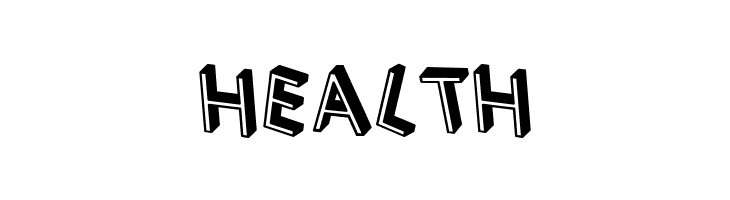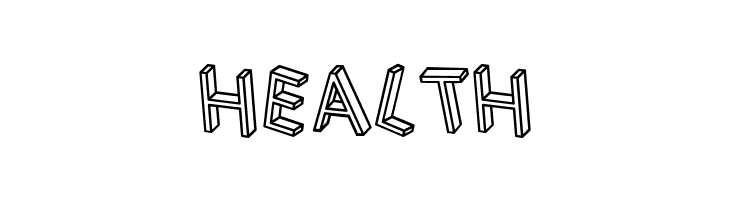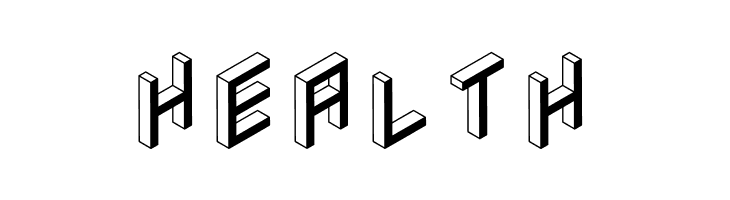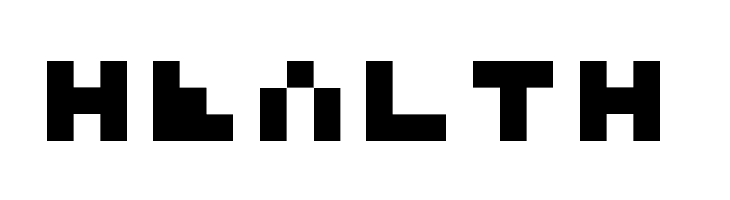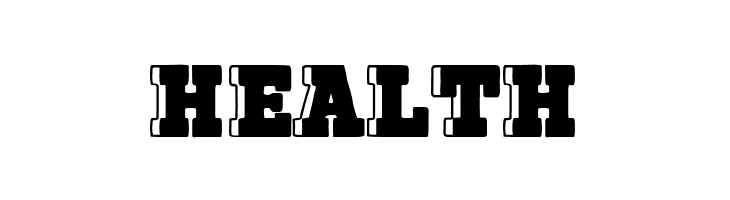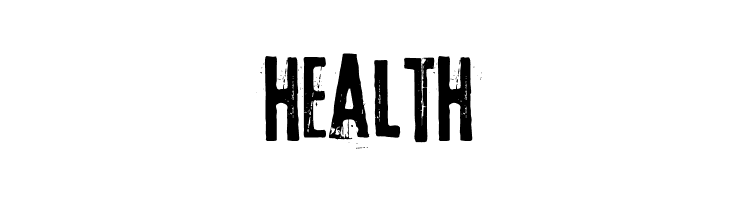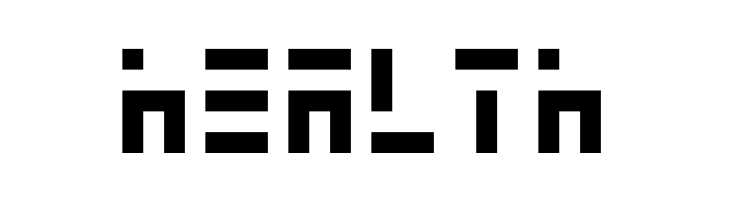
A hand-drawn, sketch-like font with thin, irregular strokes for a casual, artistic feel.
A playful and elegant cursive font with a handwritten feel.
A lively and expressive script font with elegant, flowing cursive letters.
A bold, ultra-condensed font with a modern and impactful style.
A modern, ultra-condensed sans-serif font with tight spacing and uniform strokes.
A sleek, ultra-condensed font with a modern, minimalist design.
A bold, ultra-condensed font with high contrast and a modern, geometric style.
A sleek, ultra-condensed, and thin font with a modern aesthetic.
A bold, modern unicase font with geometric shapes and consistent stroke widths.
A modern unicase font with rounded, geometric shapes and consistent stroke width.
A bold, distressed font with a grunge, vintage aesthetic.
A bold, geometric font with a textured, industrial style.
A bold, three-dimensional block font with textured fill and shadow effects.
A bold, retro-inspired font with playful, rounded characters.
A bold, retro font with a playful, groovy style and rounded, exaggerated curves.
A bold, maze-like font with rounded edges and a futuristic, abstract style.
An abstract, geometric font with sharp angles and bold shapes.
A modern, linear font with a digital, geometric design.
A modern, abstract font with characters formed by vertical lines.
Whimsical, abstract decorative font with playful loops and dots.
A playful, hand-drawn font with tall, narrow letters and a whimsical style.
A bold, geometric font with a modern and decorative style.
A modern, geometric font with a shadowed, three-dimensional effect.
A bold, futuristic font with geometric shapes and rounded edges.
A bold, geometric, and abstract font with a futuristic, italicized style.
A futuristic, hollow geometric font with bold, angular lines.
A bold, futuristic font with geometric shapes and thick strokes.
A modern, rounded geometric font with uniform width and clean lines.
A bold, playful font with abstract and dynamic letterforms.
A cursive, handwritten font with elegant, flowing letters.
Geometric, rounded sans-serif with a modern, technical look.
A dynamic, cursive script font with medium contrast and expressive strokes.
A bold, dramatic blackletter font with intricate detailing.
A bold, modern sans-serif font with clean lines and excellent readability.